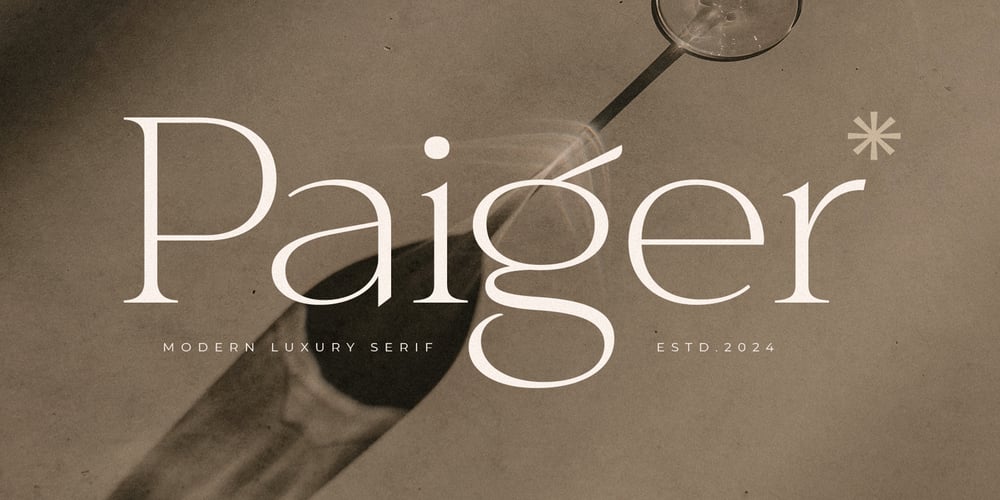
Paiger
Paiger font
Paiger Font Family was designed by Hermansyah and published by Get Studio. Paiger contains 1 styles and family package options. Introducing Paiger – Modern Luxury Serif, where elegance meets flair. This refined serif font exudes sophistication with its smooth lines and contemporary charm. Elevate your designs with Paiger’s timeless appeal, perfect for adding a touch of class to any project.